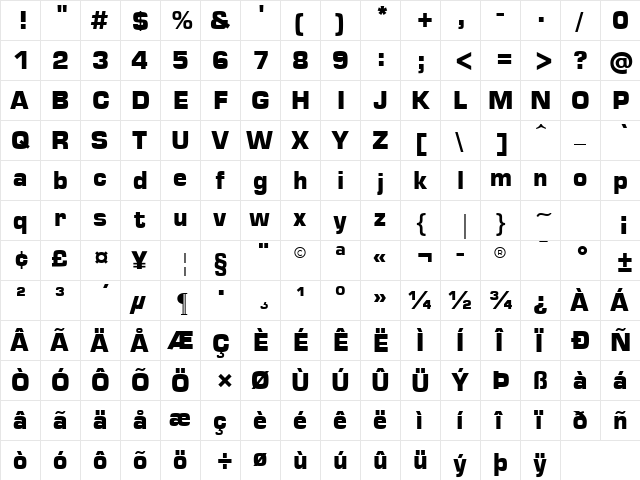
Metrostyle EC Bold Font Preview
Metrostyle EC Bold
Metrostyle EC Bold Font Details
Design Context for Metrostyle EC Typeface
Metrostyle EC is a composed and adaptable typeface that performs quietly and consistently across a wide range of design contexts. Its bold stroke weight gives it real presence on the page.